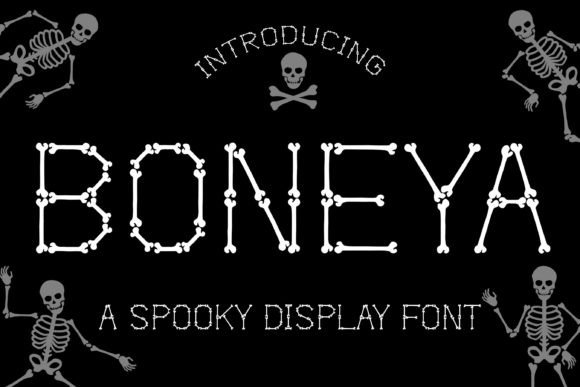
Enter the hauntingly charming realm of Boneya Font, a display font that oozes an eerie and playful allure. Designed by the creative minds at V Design Stock, Boneya is more than just a font; it's an invitation to embark on a spooky adventure.
With its captivating curves and playful spirit, Boneya is the perfect companion for your Halloween-themed projects. Imagine your posters, invitations, and social media posts adorned with Boneya's spooky elegance, leaving a lasting impression on your audience. The font's unique letterforms, reminiscent of a mischievous ghost, will add a touch of delightful eeriness to your designs.
Boneya Font is not just limited to Halloween. Its versatility extends to a wide range of projects, from horror-themed designs to whimsical illustrations. Unleash your creativity and let Boneya's spooky charm elevate your designs to new heights.